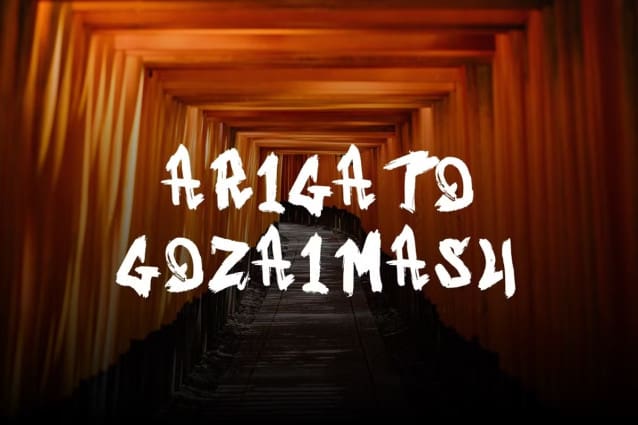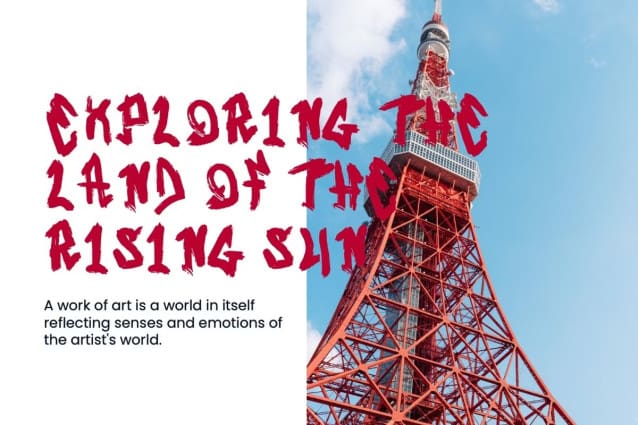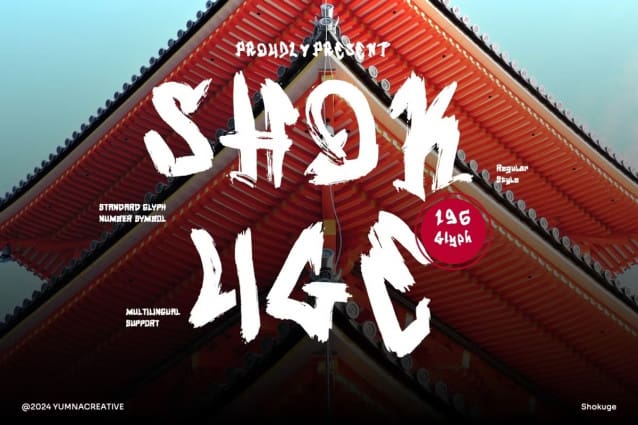
Shokuge Japanese Brush Font
Shokuge Japanese Brush Font is a traditional brush used in Japanese calligraphy and painting. It has soft bristles that allow for smooth, flowing strokes. Ideal for creating beautiful characters or artwork, it helps artists achieve delicate and precise details. The brush is commonly used with ink and rice paper for classic Japanese styles.